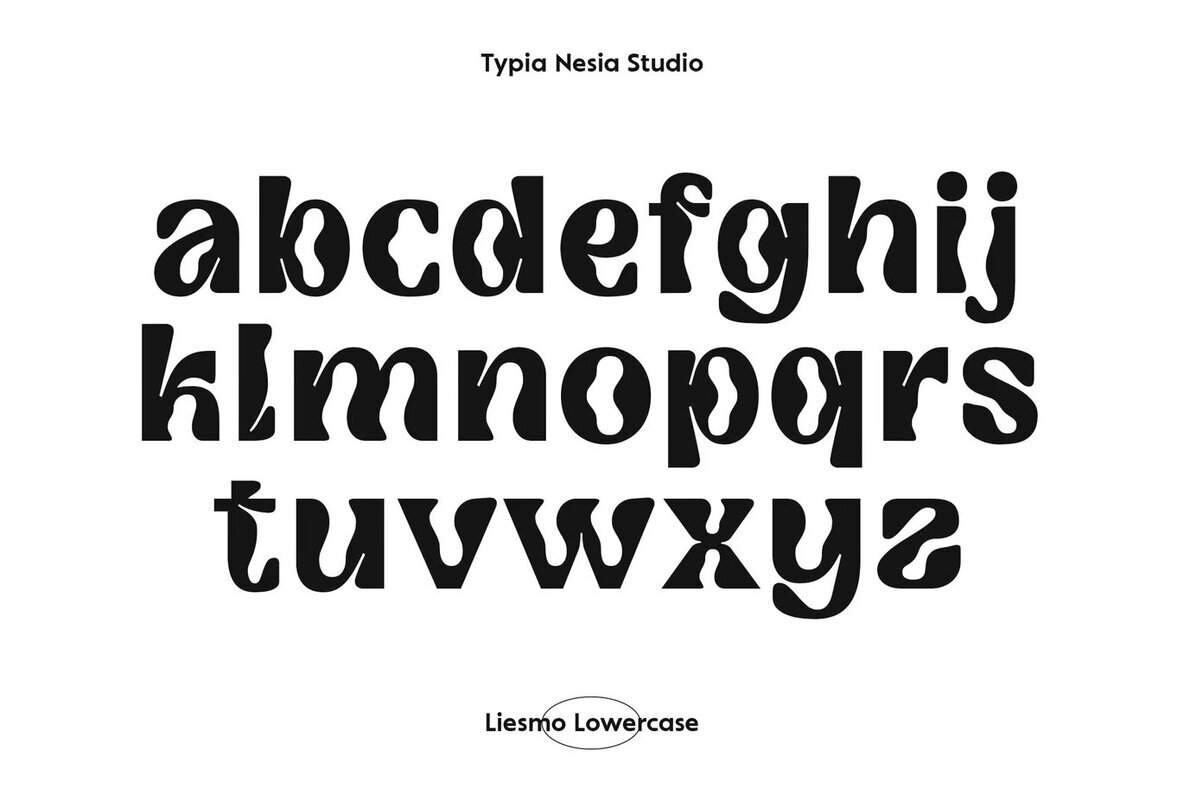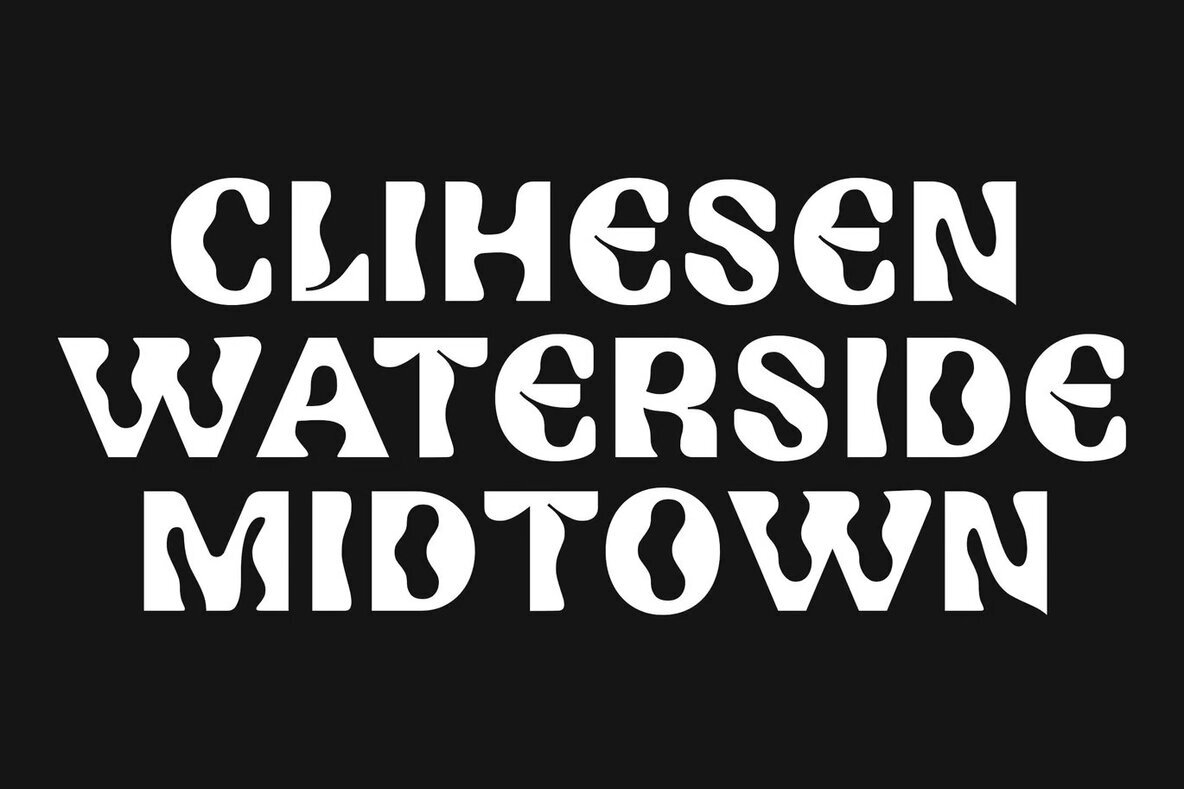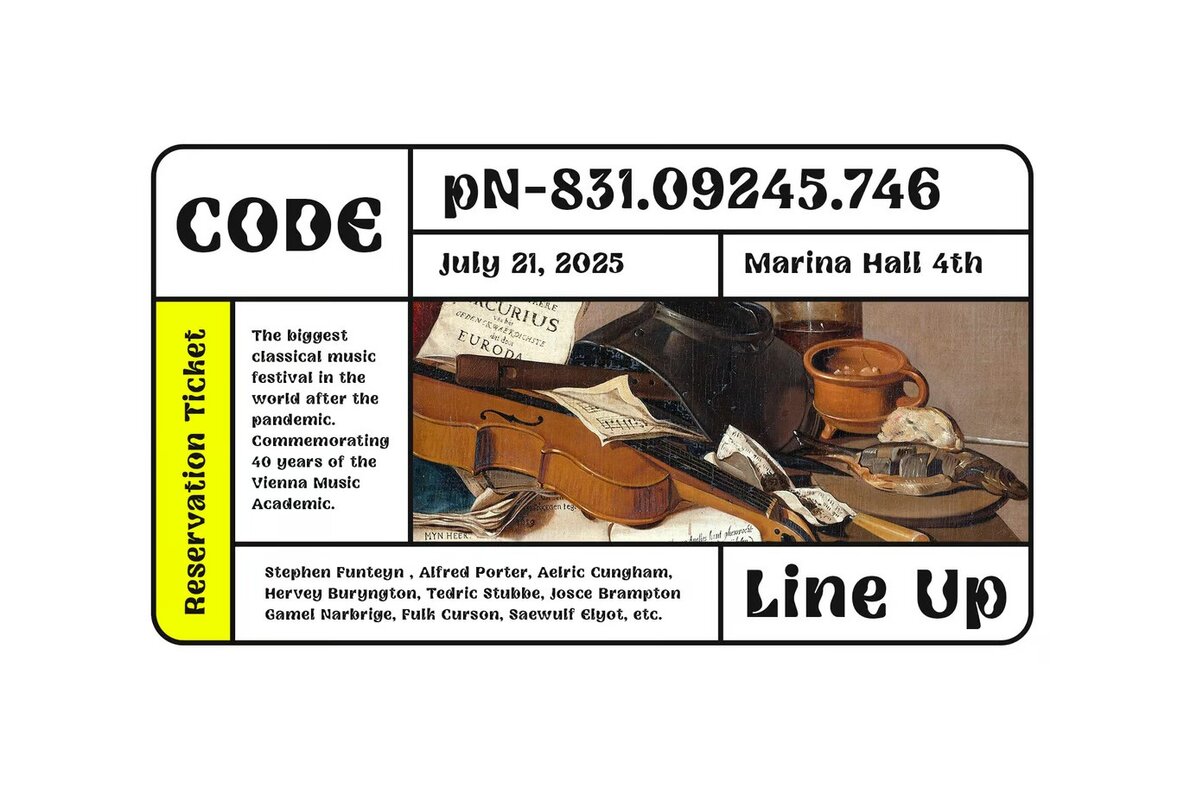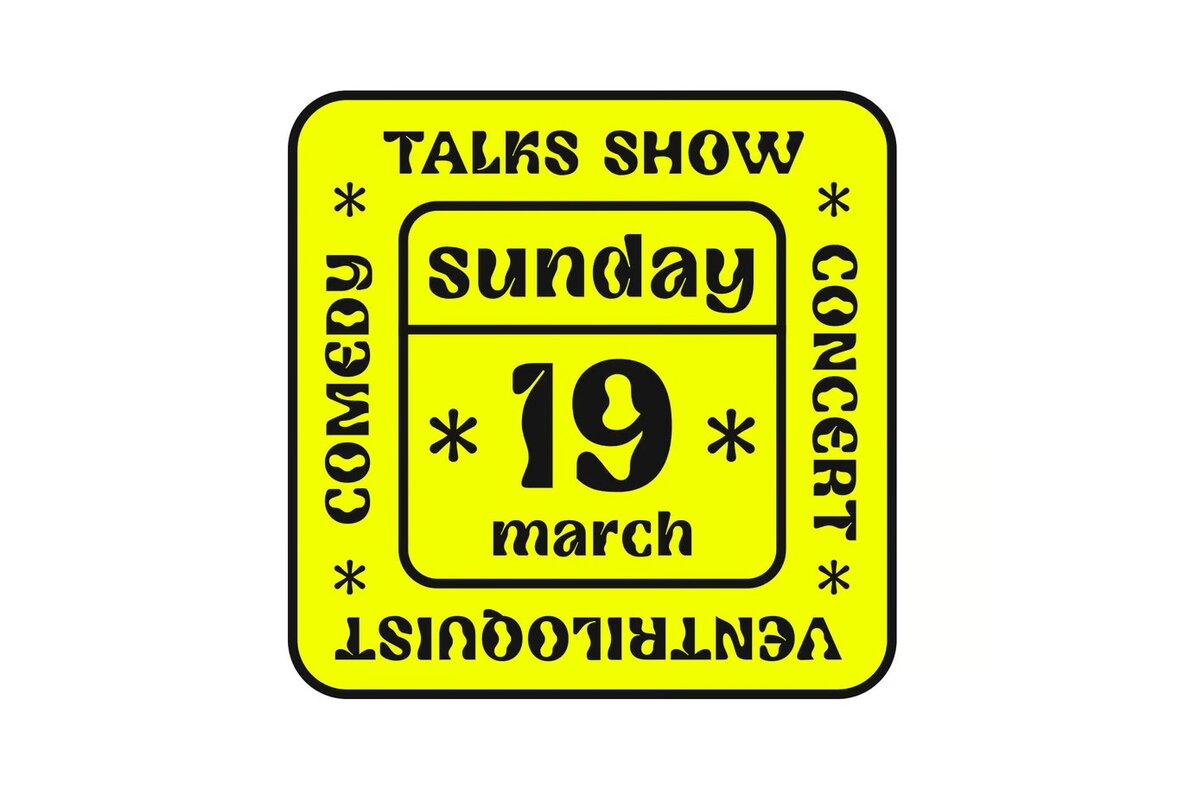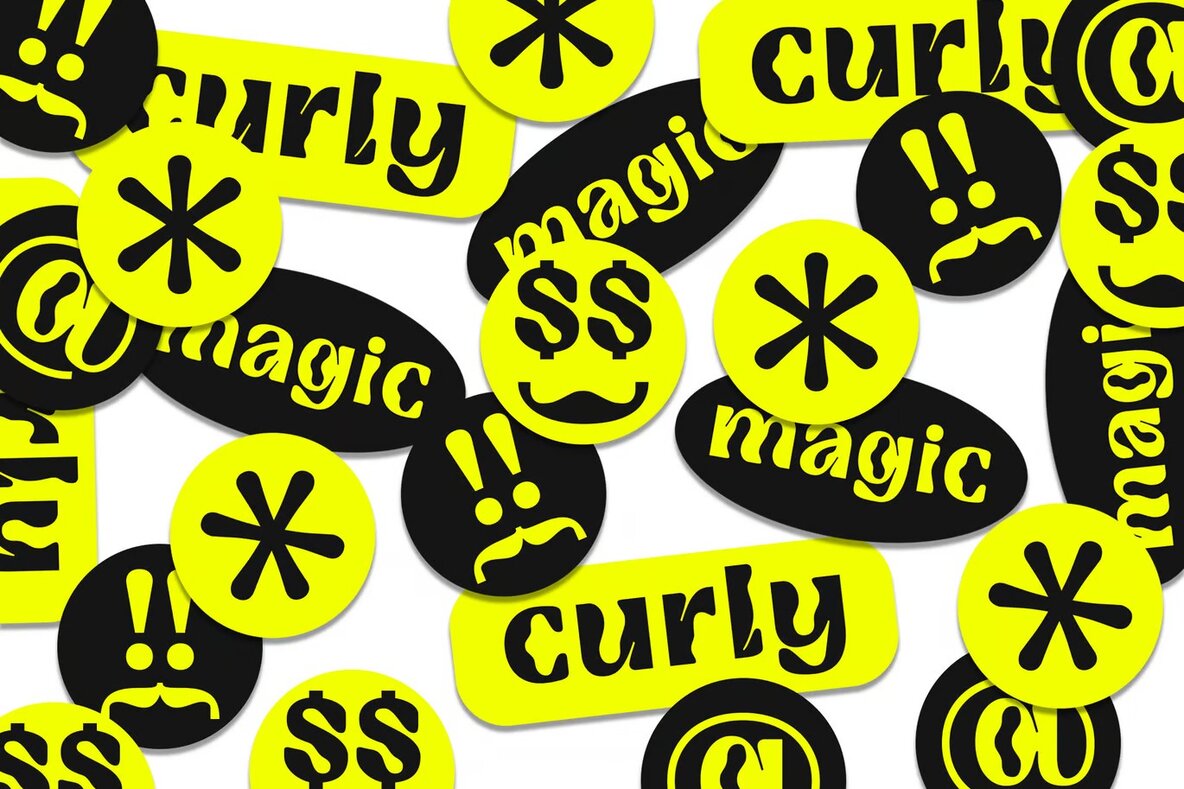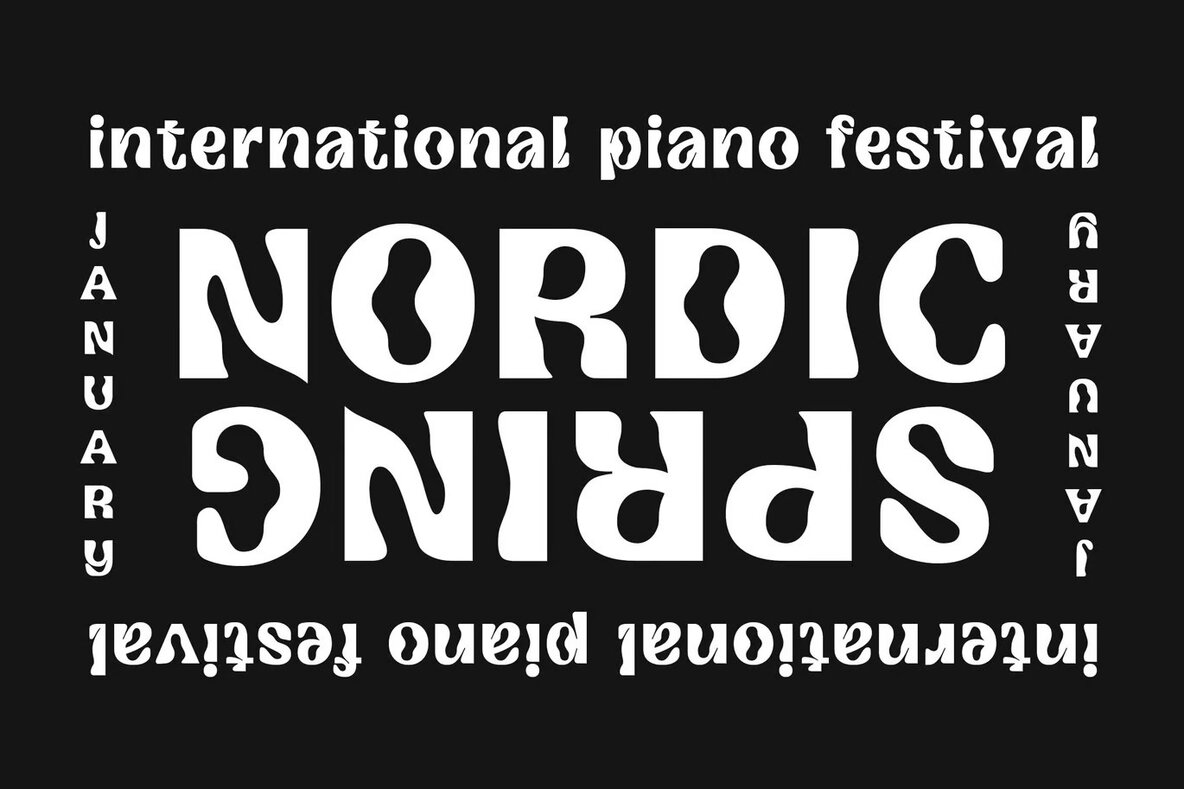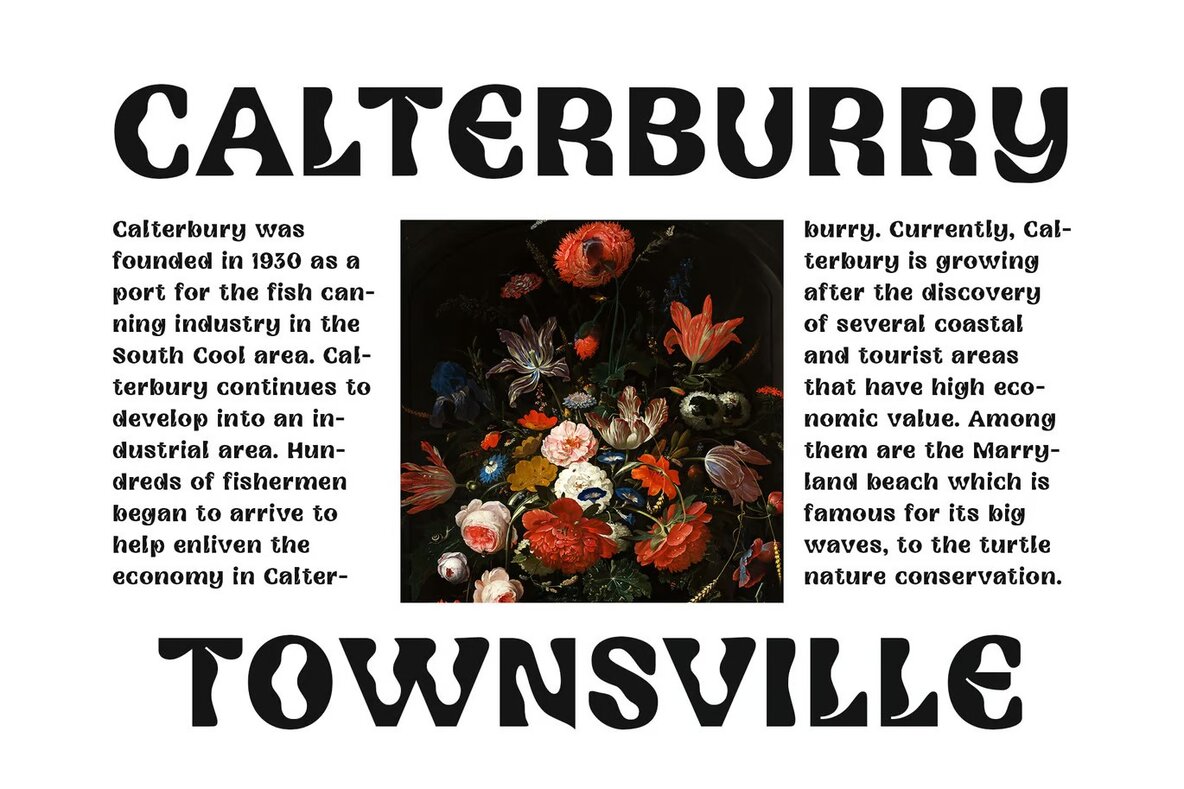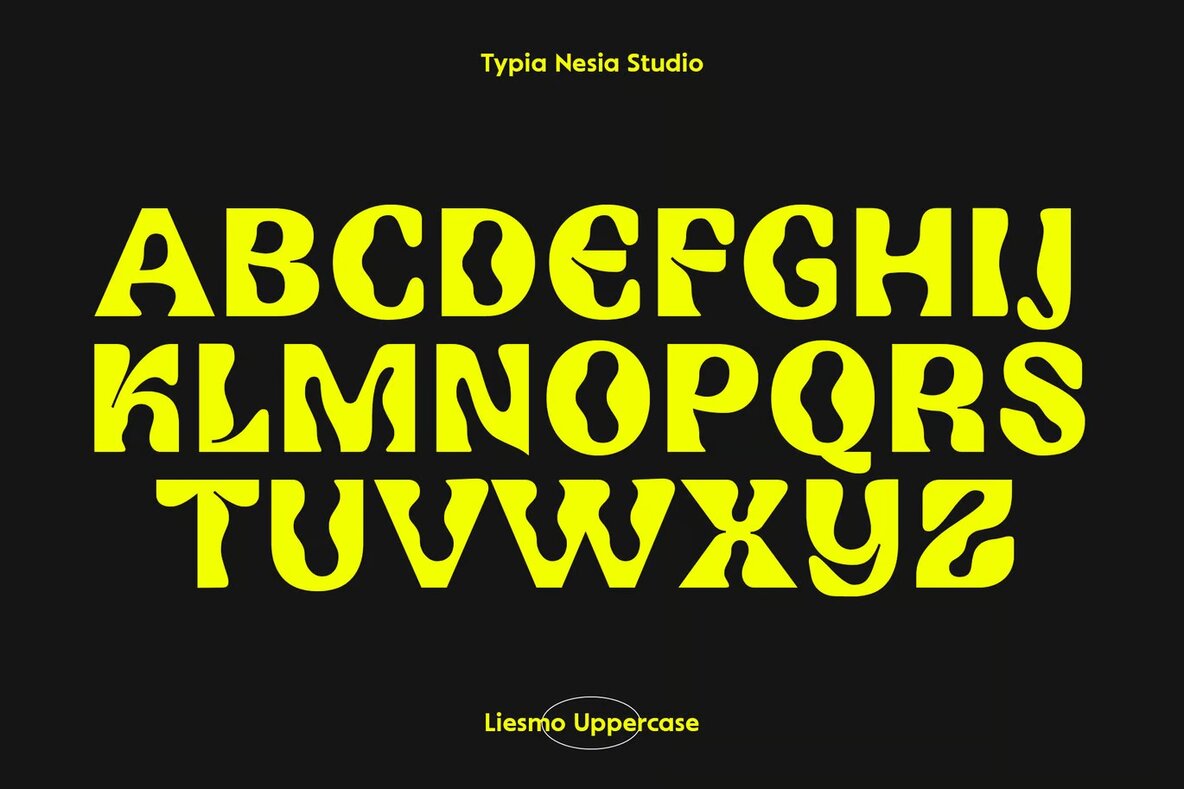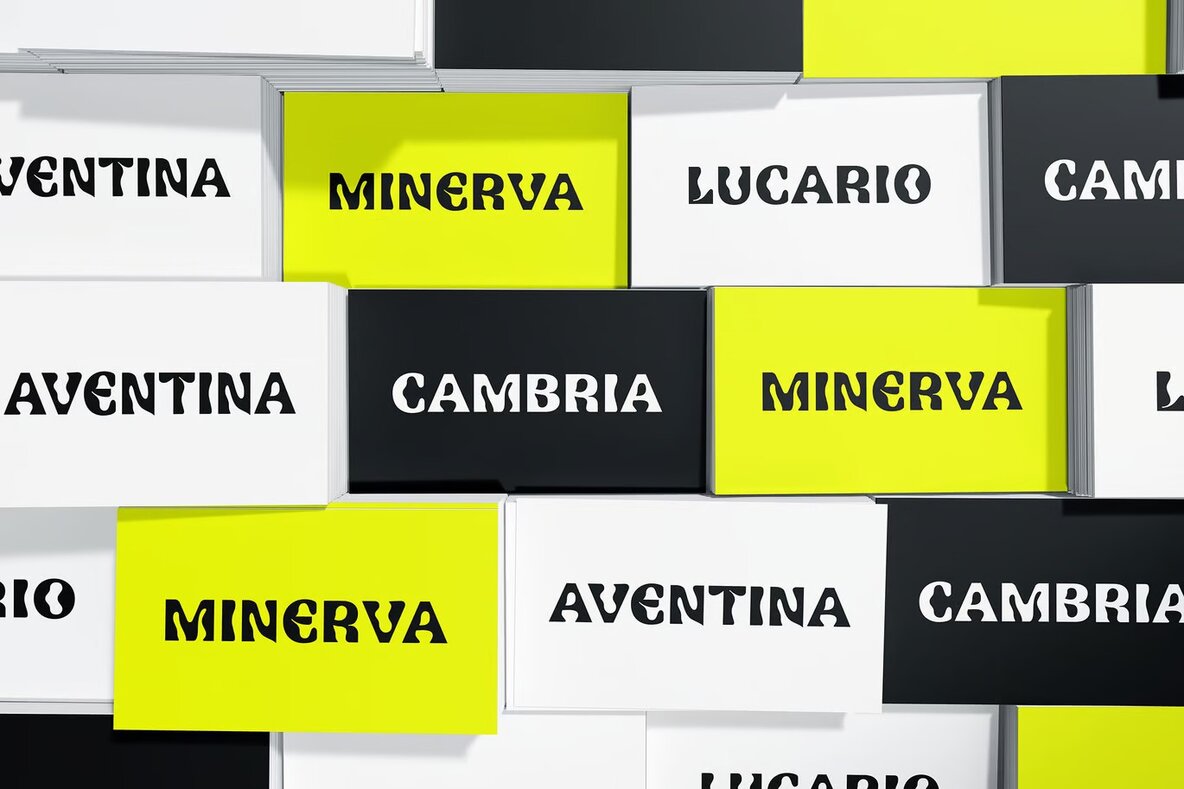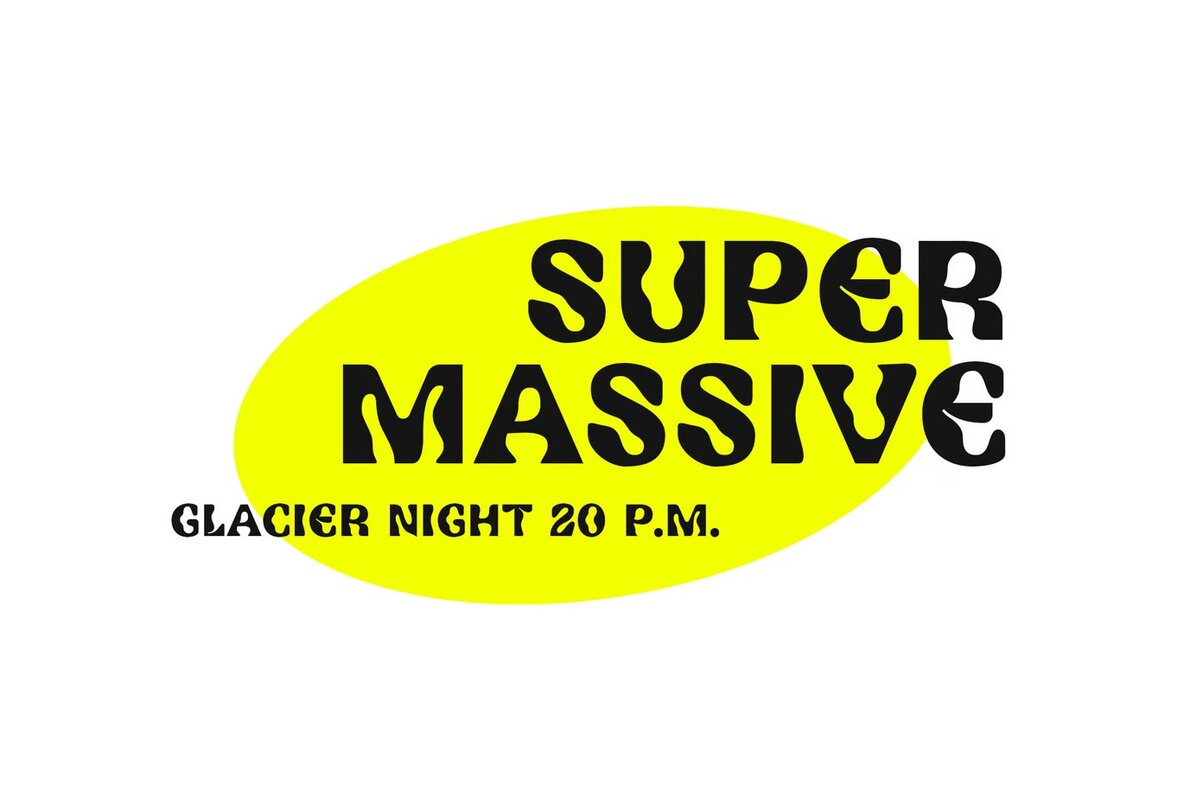
Liesmo Font
Liesmo Regular
Liesmo is a dynamic psychedelic black display sans serif font with a unique brutalist aesthetic. It's ideal for a variety of creative projects, offering a bold, expressive look that stands out. Whether you're working on logo branding, editorial layouts, or stationery design, Liesmo provides the versatility and impact you need. Its contemporary style is perfect for fashion, sport design, modern advertising, and more, making it a great choice for both digital and print applications.
Enhance your designs with Liesmo's distinct character, suited for everything from music posters and blog designs to websites and app interfaces. Its edgy and modern approach also fits well with startups and special event promotions. Liesmo makes an impressive choice for book or magazine covers, ensuring that your titles get the attention they deserve. Dive into a world of creativity with Liesmo and give your projects a bold new voice.